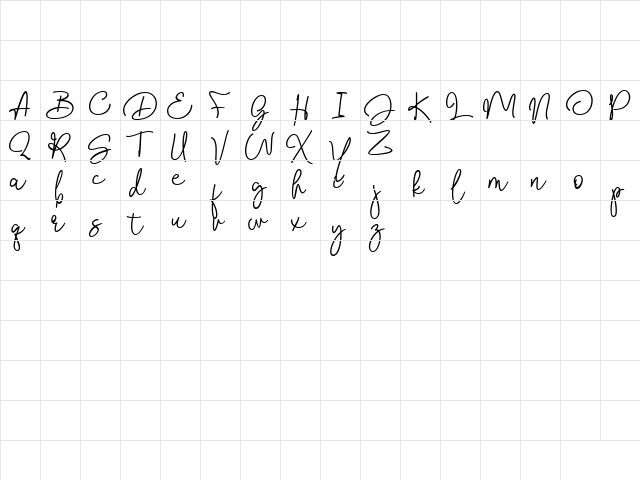
Bendina Sambat Regular
Design Context for Bendina Sambat Typeface
Bendina Sambat is a composed and adaptable typeface that performs quietly and consistently across a wide range of design contexts.